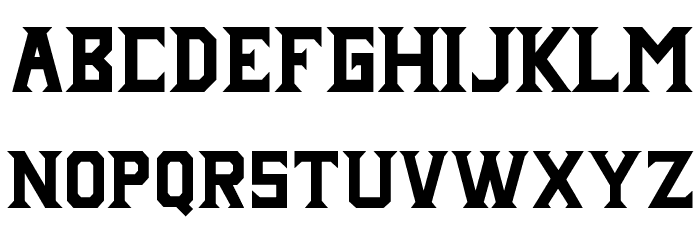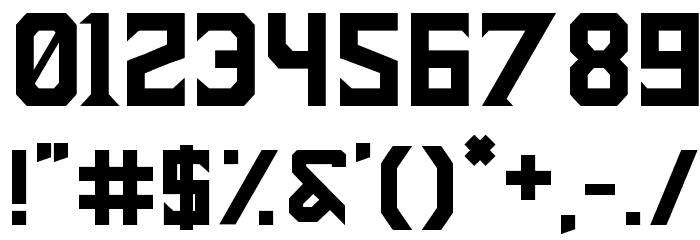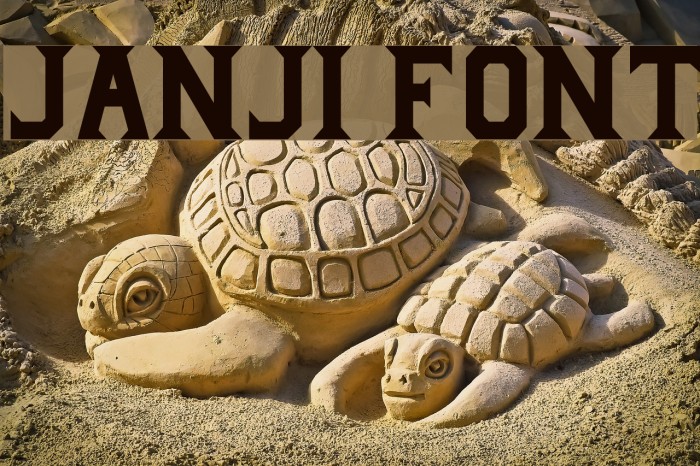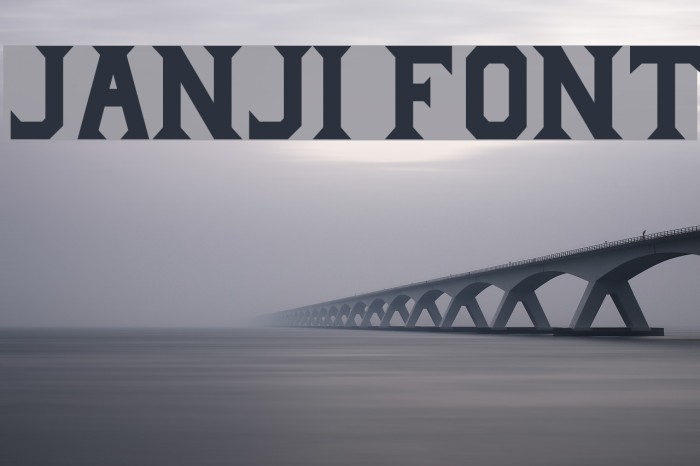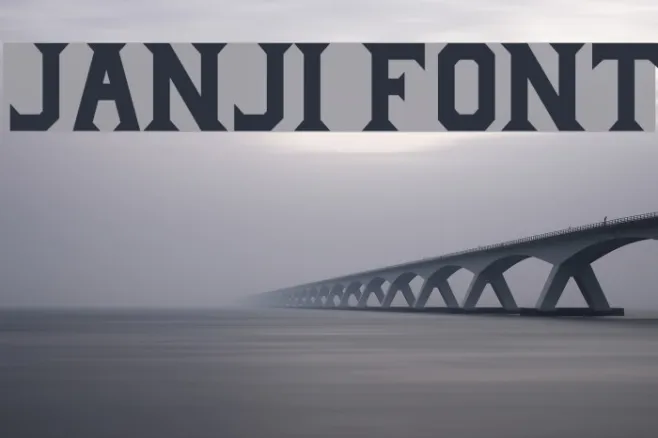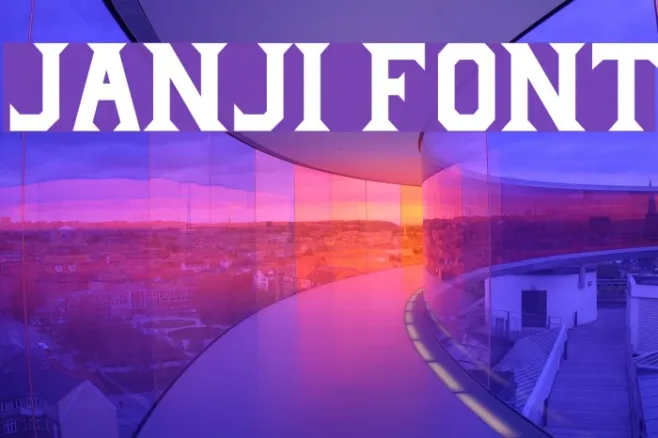
Janji Font
This font features a bold, geometric design with sharp angles and a strong presence. The characters are constructed with a blocky, almost industrial style, giving it a distinctive and commanding appearance. The uppercase letters are particularly striking, with a uniform height and width that create a cohesive look. The numbers and special characters maintain this bold aesthetic, ensuring consistency across all glyphs. The font's design is reminiscent of vintage signage or sports team logos, making it ideal for projects that require a bold and impactful visual statement.
A bold, geometric font with a strong, industrial style.
- Proposed Projects: Ideal for sports team logos, vintage signage, posters, and branding that requires a bold statement.
- Overall Style: Vintage